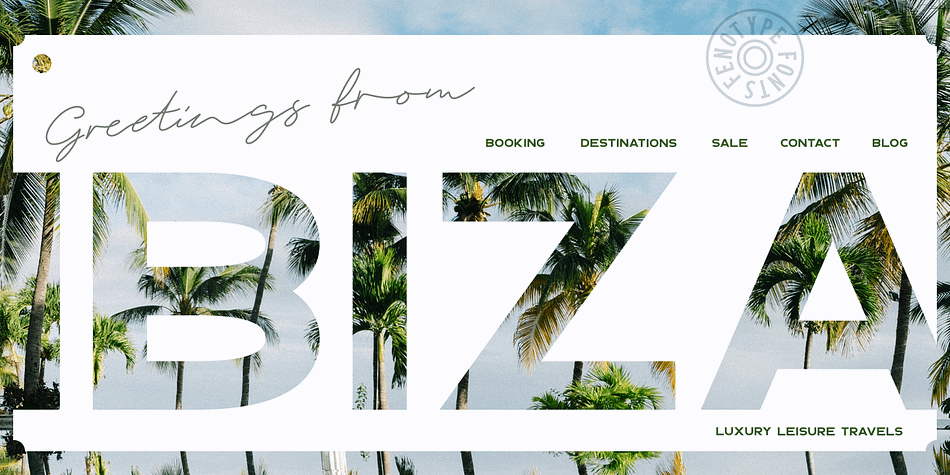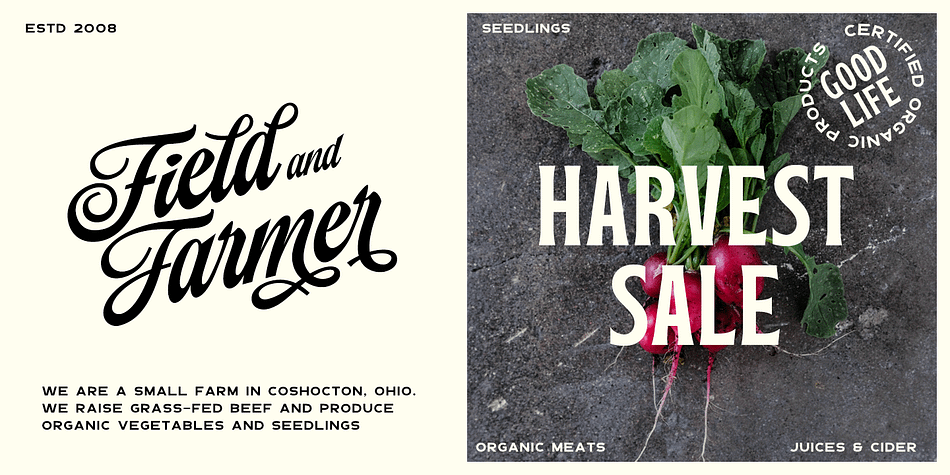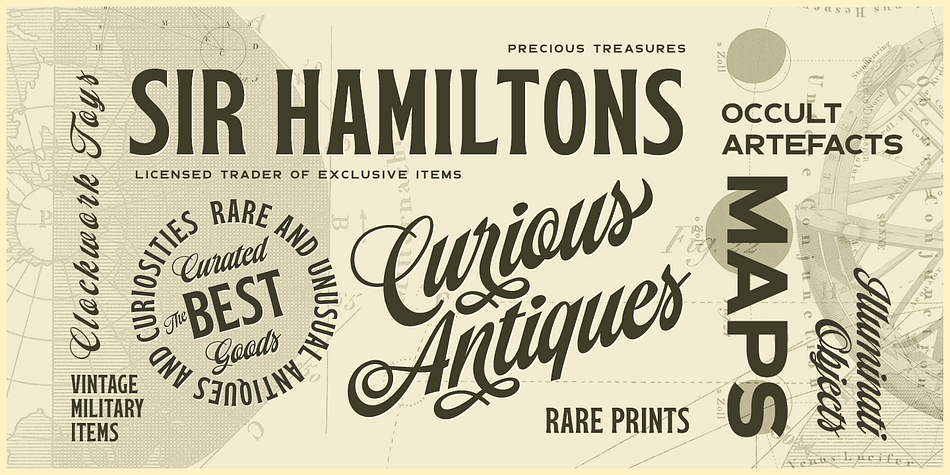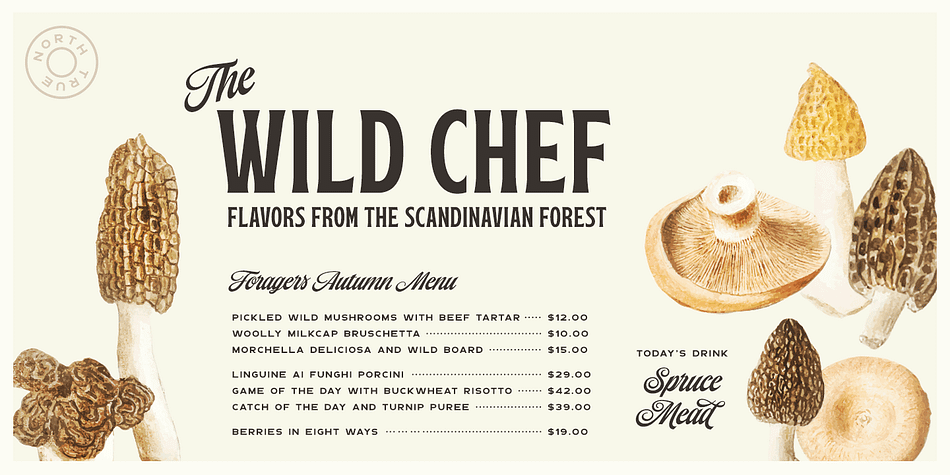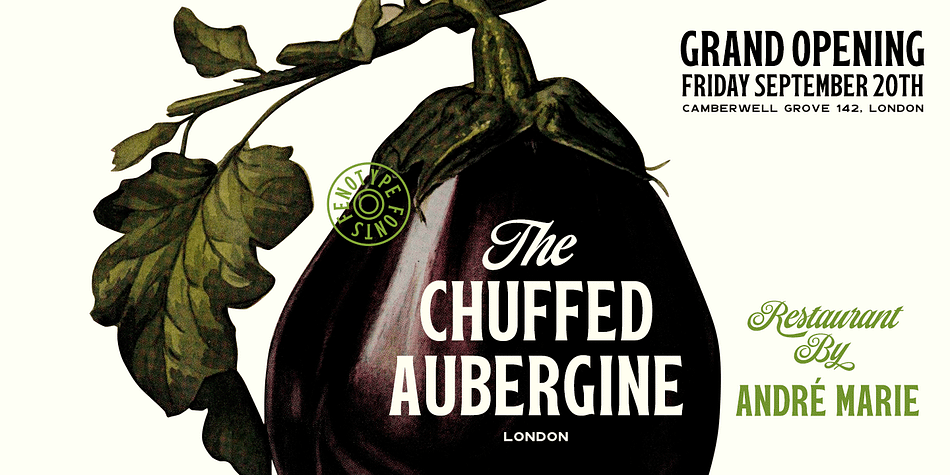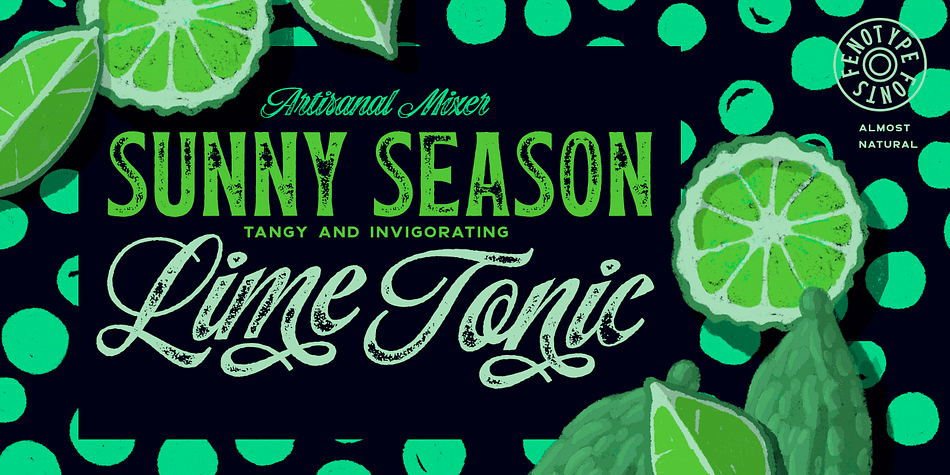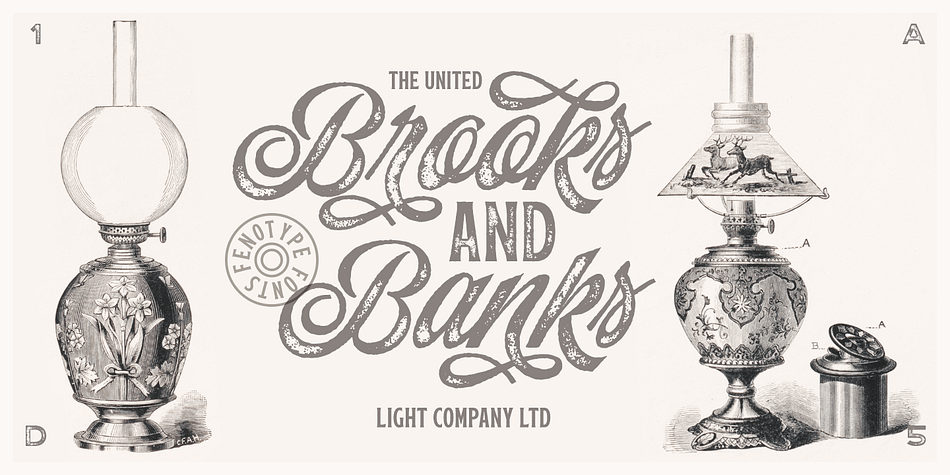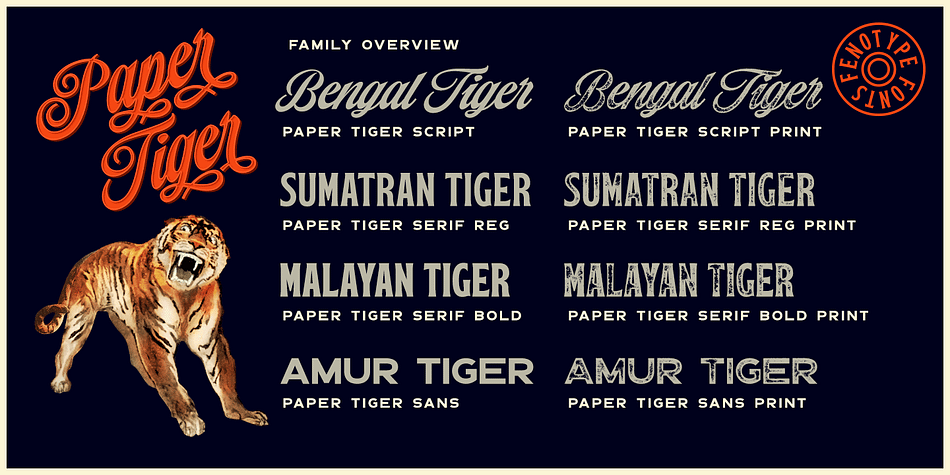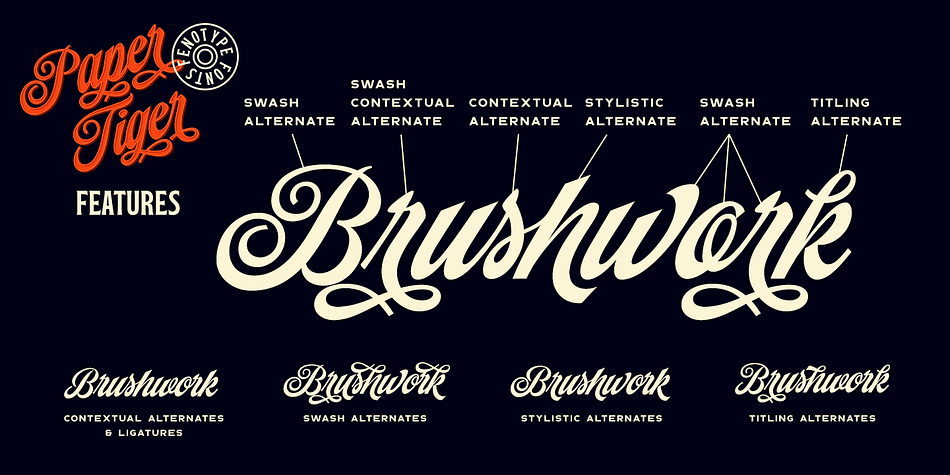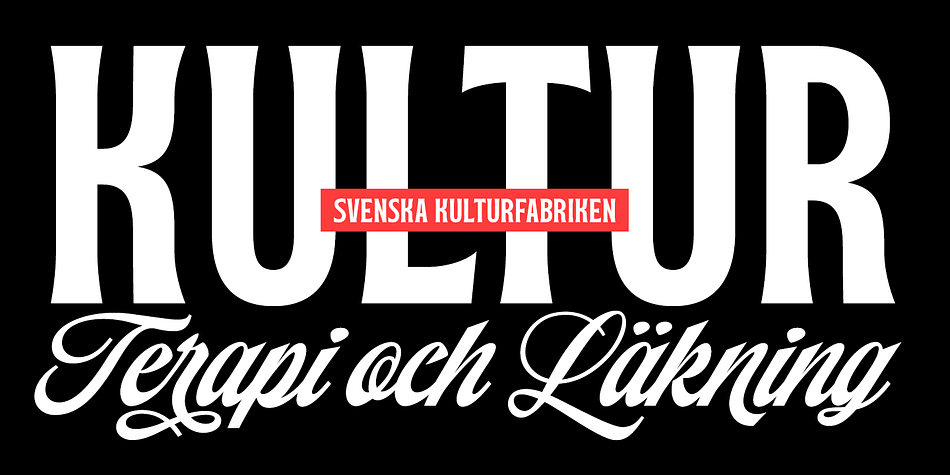
Designed by Emil Bertell, Paper Tiger is a multiple classification font family. This typeface has eight styles and was published by Fenotype.
Paper Tiger is a splendid display font package by Fenotype. It’s a Victorian Script accompanied by a condensed flared serif in two weights and a chunky sans serif. Together they make a powerful set for creating logotypes, posters, packaging design, headlines or any display use online or offline. Paper Tiger fonts are available as normal clean versions, as well as “Print” versions that have rugged outlines and eroded texture inside.
Paper Tiger suits great for book covers, restaurant menus, food products, craft ale labels, organic teas, sport teams logos and any such.
Paper Tiger Script is equipped with Contextual Alternates and Standard Ligatures that keep the connections smooth. Both features are automatically on. In addition it has Swash, Stylistic and Titling Alternates for some extra flair.